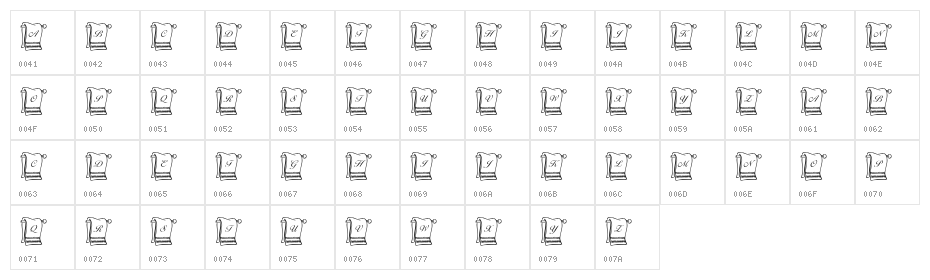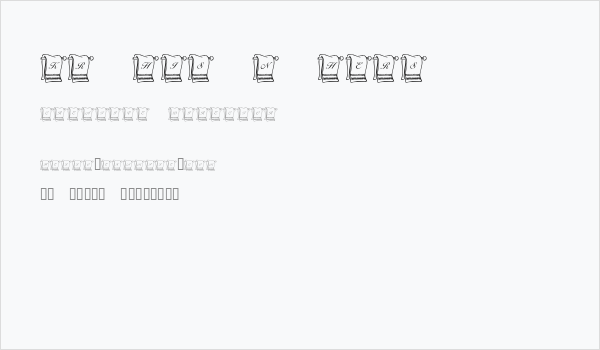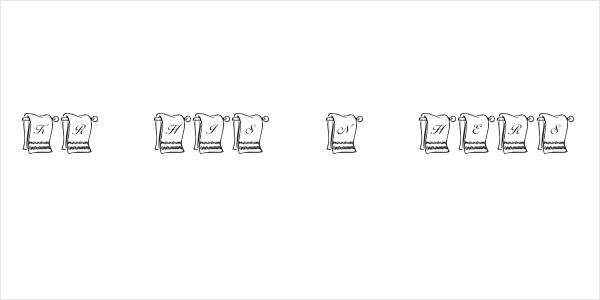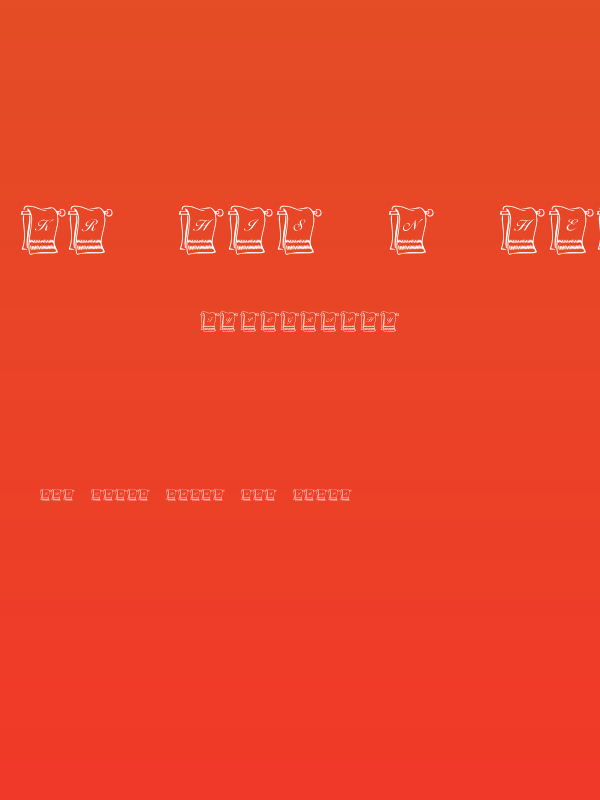
KR His N Hers Font
KR His N Hers Description
This decorative font features each character elegantly displayed on a scroll-like background, giving it a vintage and ornate appearance. The letters are stylized with a script-like quality, adding a touch of sophistication and charm. The scroll design adds an element of historical or classical appeal, making it suitable for projects that require a touch of elegance and tradition. The font is highly decorative, with intricate details that make each character stand out. It is perfect for creating a unique and memorable visual impact.
| Use Case | Headlines, Invitations, Decorative purposes |
| Proposed Projects | Ideal for wedding invitations, historical-themed events, certificates, or any project needing a classic and decorative touch. |